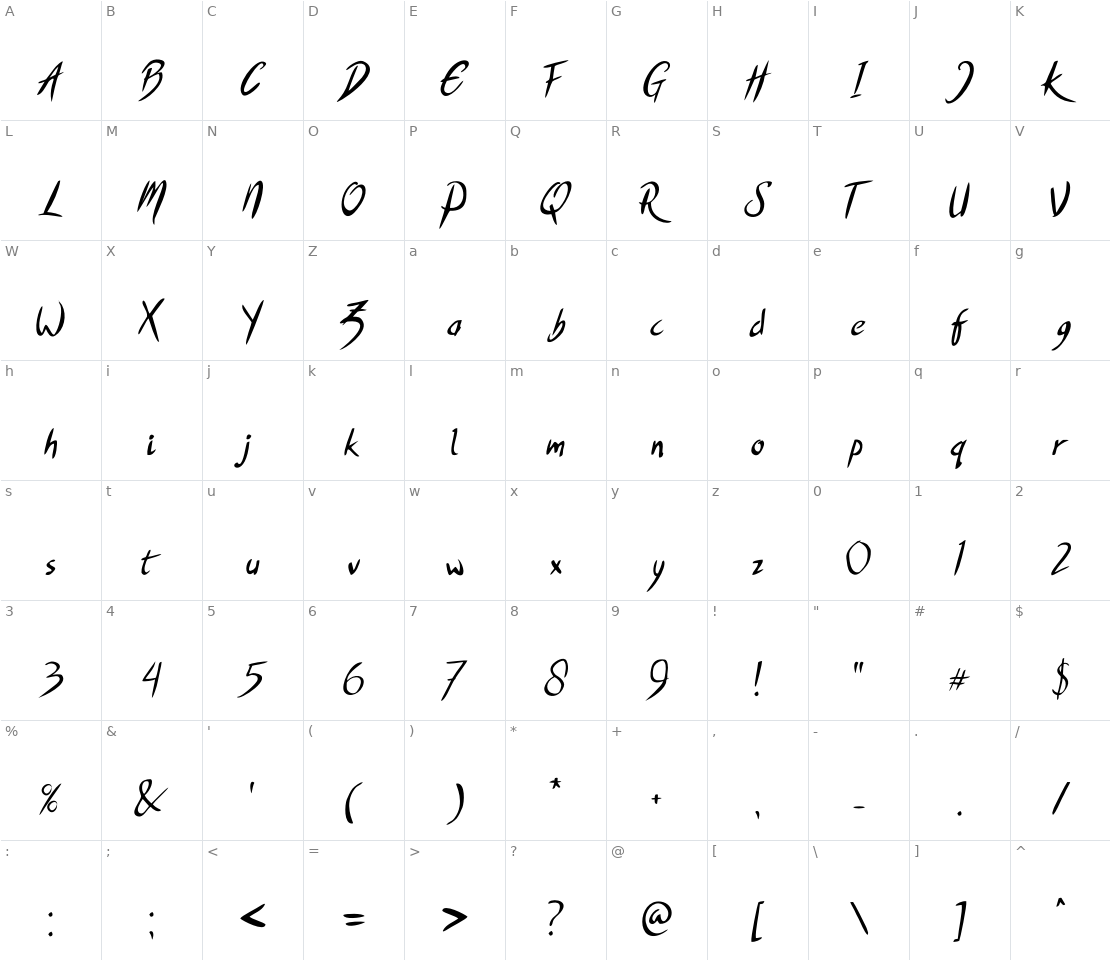
Showbad
Showbad is a loose, brush-driven handwritten face by Ferdiansyah with expressive strokes that feel genuinely spontaneous. The letterforms are irregular and organic, with visible speed in every sweep of the brush, giving it an artistic energy that works well for headlines, packaging, and creative branding. It carries enough personality to stand on its own without needing much else around it.